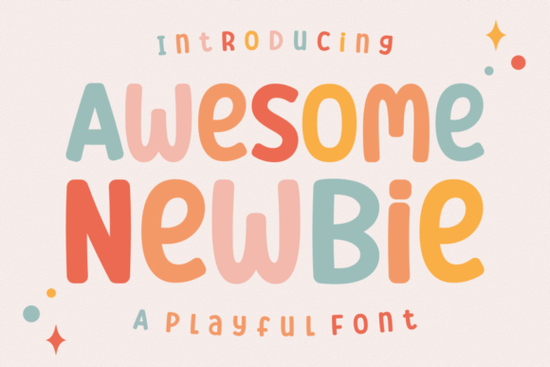
If you’ve been looking for a display font that feels like a big, friendly hug in type form, Awesome Newbie might be exactly what your next project needs. It’s not trying to be fancy or overly polished it’s bold, cheerful, and just a little bit chubby in all the right ways. Whether you’re designing greeting cards, branding for a playful small business, or custom merch for print-on-demand, this font brings personality without demanding perfection.
What makes it especially handy is how naturally it fits into casual, creative spaces. Think birthday invites, kids’ party decor, crafty Etsy listings, or even social media graphics that need to feel approachable. You don’t have to overthink pairing it with other fonts it holds its own. And if you’re still building your font library, adding something this versatile gives you more room to experiment without starting from scratch every time.
Who actually benefits from using Awesome Newbie?
It’s not just for “designers.” If you’re someone who:
- Makes printable wall art or planner stickers
- Runs a small shop selling mugs, shirts, or tote bags
- Loves DIY projects but doesn’t have formal design training
- Wants your brand to feel warm, fun, and unpretentious
…then this font was practically made for you. The rounded edges and generous spacing make it readable even at smaller sizes, which is great when you’re working on product mockups or layered designs.
How does it compare to other playful display fonts?
There’s no shortage of fun fonts out there, but not all of them deliver the same vibe. For example, if you’ve used Belmore, you know it leans slightly more structured still friendly, but with sharper corners. Yorks has a hand-drawn charm that’s perfect for rustic or vintage themes, while Retro Lettering nails that throwback diner sign energy.
Autumn Display is warmer and earthier ideal for fall-themed projects or cozy branding. But Awesome Newbie stands out because it doesn’t try to fit a specific season or trend. It’s timeless in its playfulness, which means you can reuse it across dozens of projects without it feeling dated.
Pro tip: If you’re using it in a cutting machine software, test the spacing first. Some extra-bold fonts can cause cut paths to overlap, but Awesome Newbie’s letterforms are spaced generously enough that you shouldn’t run into issues.
Any tips for getting the most out of this font?
- Pair it with simple sans-serifs. Let Awesome Newbie be the star. A clean font like Montserrat or Lato as body text keeps things balanced.
- Use color to enhance the mood. Bright yellows, soft pinks, or mint greens amplify its cheerful nature.
- Avoid tiny sizes. It’s a display font meant to be seen. Keep headlines above 24pt for best results.
- Layer it with textures or subtle shadows to give depth without losing readability.
And don’t feel pressured to use it “correctly.” One of the joys of a font like this is how forgiving it is. Misspelled something? Add an arrow doodle and call it intentional. Need to squeeze in an extra word? The generous letter spacing lets you adjust kerning without it looking broken.